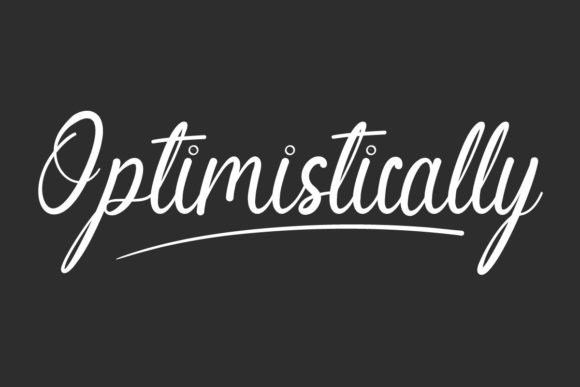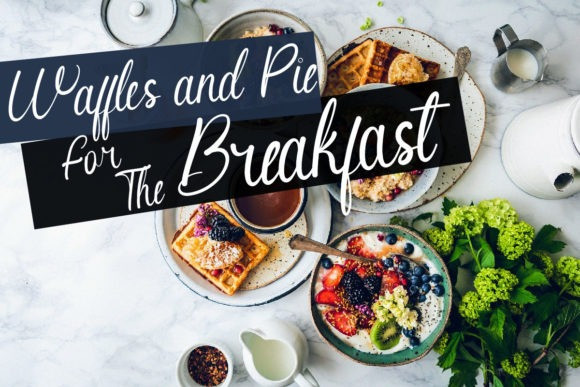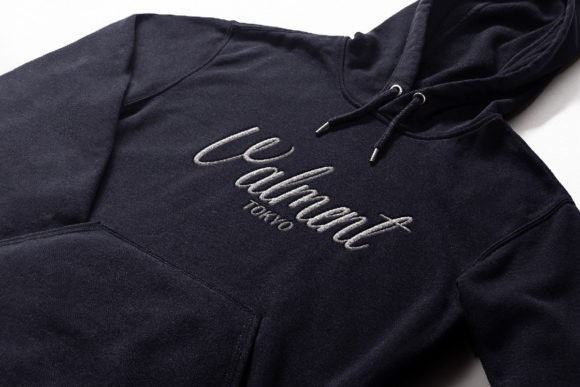
Optimistically Font
Optimistically is a beautiful calligraphy font with stunning characters, alternatives and ligatures. This font is ideal for wedding, florist, sales marketing, professional, dentist, real estate, music, videography and more. Optimistically is PUA encoded which means you can access all of the glyphs and swashes with ease.